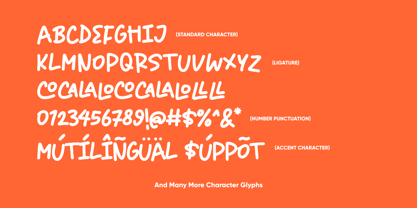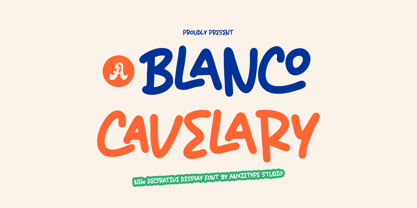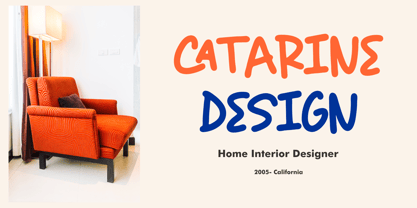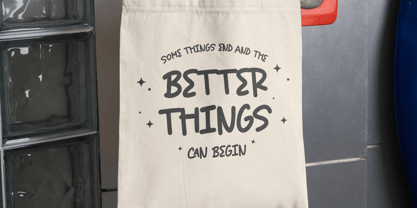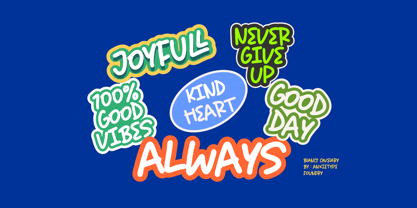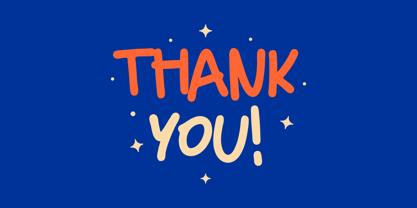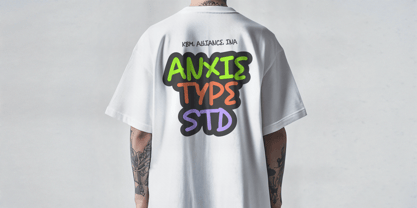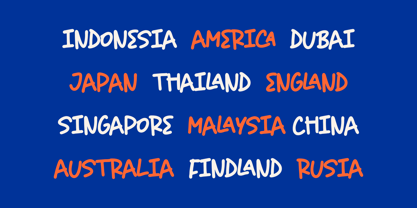
Blanco Cavelary
by Anxietype Foundry
The Blanco Cavelary Font Family was designed by Annas Rifky Anhar and published by Anxietype Foundry. Blanco Cavelary contains 1 styles. More about this family
Introducing Blanco Cavelary Font, an exquisite offering from the ingenious minds at Anxietype Foundry. This fashion-forward typographic piece is enriched with ligatures, infusing an air of sophisticated handwriting into any design. It’s a brilliant choice for elevating sticker designs, intensifying silhouettes, or infusing a craft project with an extra touch of elegance. Furthermore, Blanco Cavelary excels in minimalistic scenarios, making statements with its unparalleled charm even against the simplest of backgrounds. Unleash your creative potential with Blanco Cavelary Font - where style meets substance.
Designers: Annas Rifky Anhar
Foundry: Anxietype Foundry